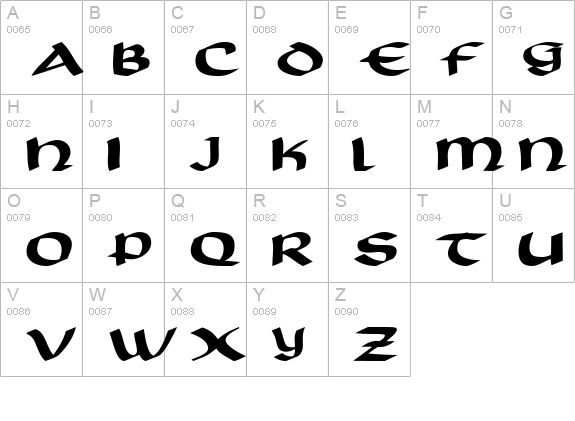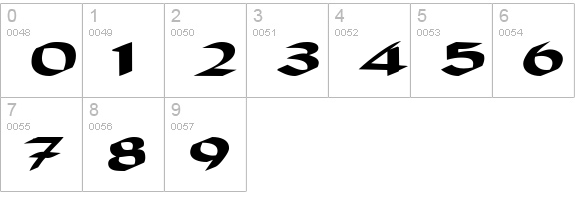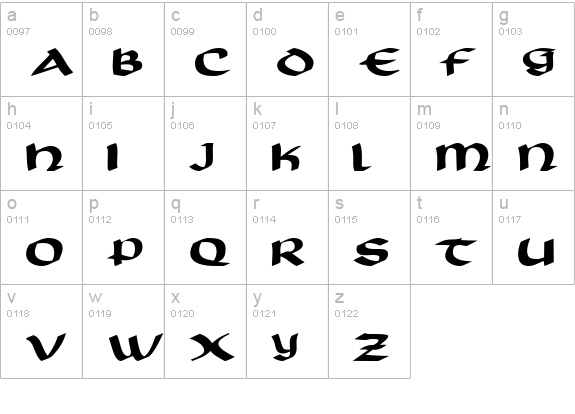
BarbourSCapsSSK Bold Font Details
BarbourSCapsSSK Bold is a strong, high-contrast variant in the BarbourSCapsSSK typeface family \xE2\x80\x94 well suited to headlines, attention-grabbing titles, and strong calls-to-action.
BarbourSCapsSSK Bold font is a striking and versatile typeface that exudes elegance and sophistication. Its bold and uppercase letters command attention, making it perfect for headlines, titles, and branding projects. The sleek and modern design of this font adds a touch of contemporary flair to any design. What makes BarbourSCapsSSK Bold font even more appealing is that it is available for free download at FontsMarket.com. This means that you can easily access this high-quality font without any cost, making it a valuable addition to your font collection. Whether you are working on a professional project or a personal design, BarbourSCapsSSK Bold font is sure to elevate your work with its bold and impactful presence.